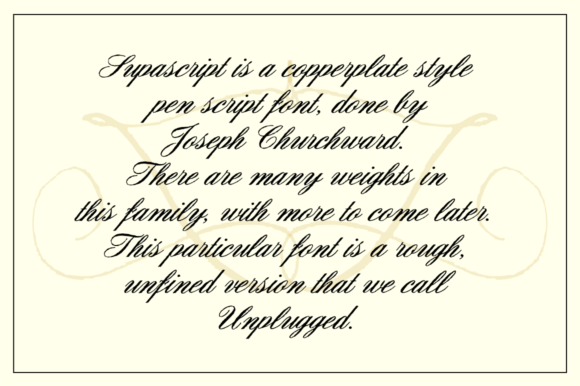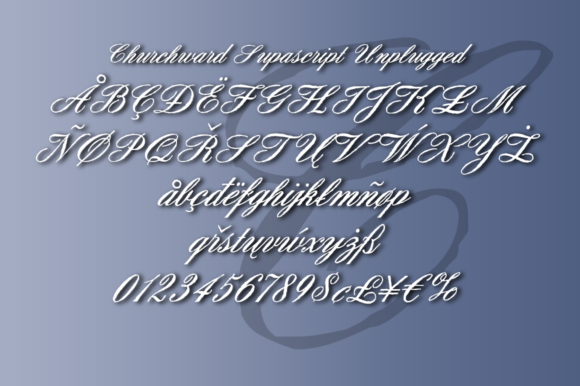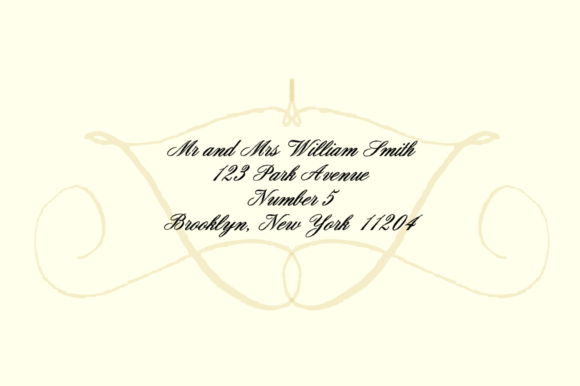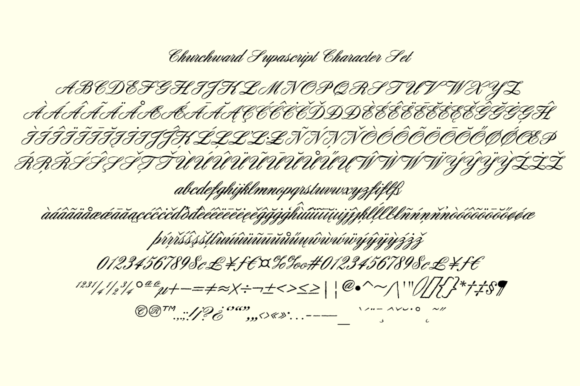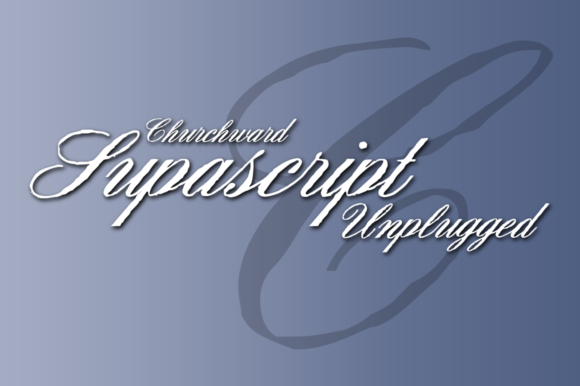
Discover the Elegance of Churchward Supascript Font
In the world of typography, few fonts manage to strike a balance between elegance and versatility. Churchward Supascript Font is one such gem that has been making waves in the design community. This delicate, cursive, and elegant script font is defined by its smooth curves, making it a perfect choice for fashion branding or editorial designs. In this article, we’ll dive into the features, benefits, and uses of Churchward Supascript Font, and explore why it’s a must-have for designers and crafters.
What is Churchward Supascript Font?
Churchward Supascript Font is a beautifully crafted script font that exudes sophistication and refinement. Its smooth, flowing curves give it a luxurious feel, making it ideal for projects that require a touch of elegance. The font’s cursive nature allows it to convey a sense of fluidity and movement, adding a dynamic element to any design.
Key Features of Churchward Supascript Font
• Delicate and Elegant: Churchward Supascript Font boasts a delicate and elegant appearance, perfect for designs that require a touch of sophistication.
• Smooth Curves: The font’s smooth curves give it a luxurious feel, making it ideal for high-end fashion branding and editorial designs.
• Cursive and Script: The font’s cursive nature allows it to convey a sense of fluidity and movement, adding a dynamic element to any design.
• Versatile: Churchward Supascript Font is versatile and can be used for a variety of design projects, from fashion branding to editorial designs.
Benefits of Using Churchward Supascript Font
So, why should you choose Churchward Supascript Font for your design projects? Here are a few benefits:
• Adds Elegance: The font adds a touch of elegance and sophistication to any design, making it perfect for high-end fashion branding and editorial designs.
• Improves Readability: The font’s smooth curves and flowing lines improve readability, making it easy to read and understand.
• Versatile: The font is versatile and can be used for a variety of design projects, from fashion branding to editorial designs.
• Easy to Use: Churchward Supascript Font is easy to use and can be easily integrated into your design projects.
Use Cases for Churchward Supascript Font
Churchward Supascript Font is perfect for a variety of design projects, including:
• Fashion Branding: The font’s elegant and sophisticated appearance makes it perfect for fashion branding, including logos, business cards, and packaging.
• Editorial Designs: The font’s smooth curves and flowing lines make it ideal for editorial designs, including magazines, newspapers, and books.
• Wedding and Event Designs: The font’s elegant appearance makes it perfect for wedding and event designs, including invitations, programs, and menus.
• Stationery and Paper Products: The font’s smooth curves and flowing lines make it ideal for stationery and paper products, including letterheads, invoices, and greeting cards.
Tips for Using Churchward Supascript Font
Here are a few tips for using Churchward Supascript Font:
• Use it Sparingly: Use the font sparingly to add a touch of elegance and sophistication to your design.
• Pair it with Other Fonts: Pair the font with other fonts to create a unique and visually appealing design.
• Experiment with Different Sizes: Experiment with different sizes to find the perfect balance for your design.
• Pay Attention to Kerning: Pay attention to kerning to ensure that the font looks elegant and sophisticated.
Font Name Churchward Supascript Font
Author BluHead Studio
In conclusion, Churchward Supascript Font is a beautiful and elegant script font that is perfect for fashion branding, editorial designs, and other design projects that require a touch of sophistication. Its smooth curves and flowing lines make it easy to read and understand, while its delicate and elegant appearance adds a touch of luxury to any design. With its versatility, ease of use, and range of use cases, Churchward Supascript Font is a must-have for designers and crafters.